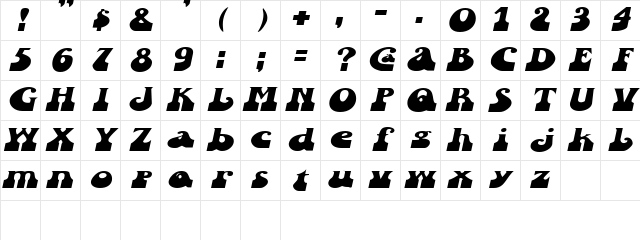
Complete SandCastlesExtended Oblique glyph index. Displaying only characters natively supported by SandCastlesExtended Oblique font.
SandCastlesExtended is a composed and adaptable typeface that performs quietly and consistently across a wide range of design contexts. The slanted form adds forward momentum and visual energy.
Pro Tip: Use SandCastlesExtended for emphasis, pull quotes, and subheadings where its slanted energy can add rhythm to the layout.